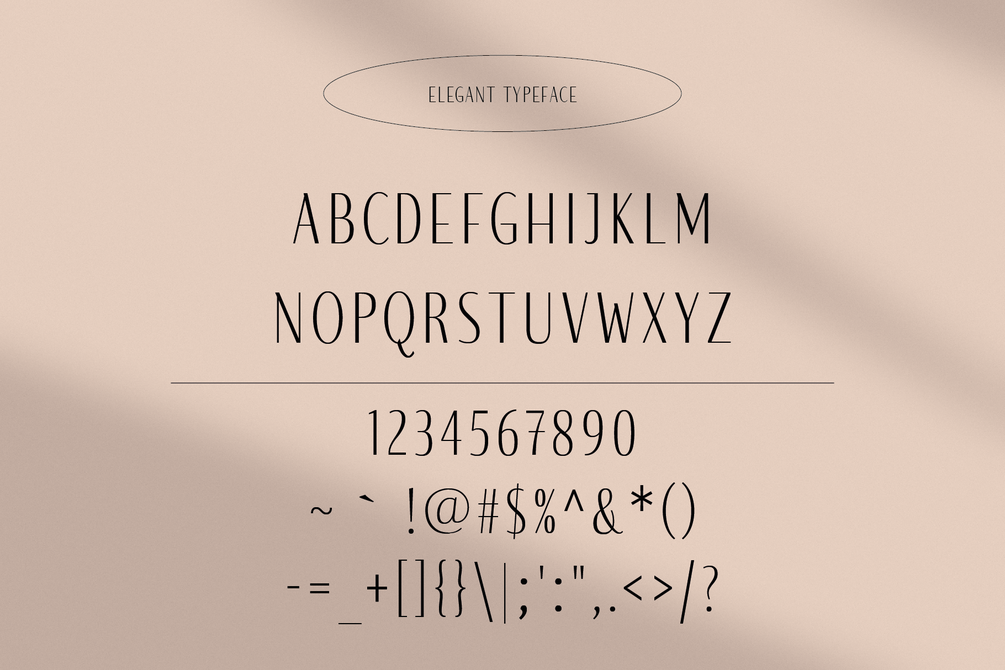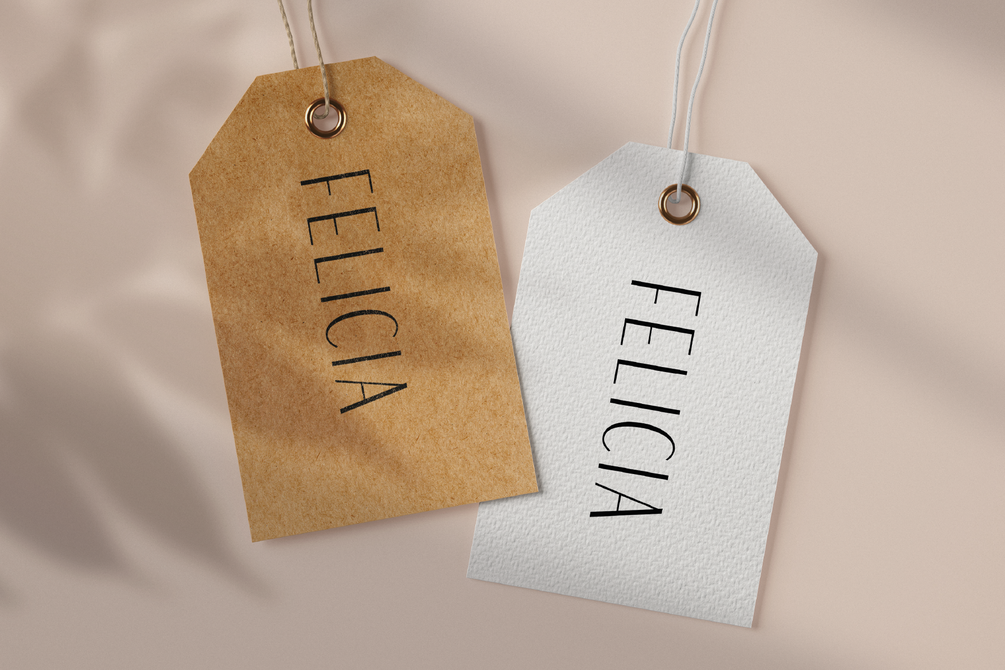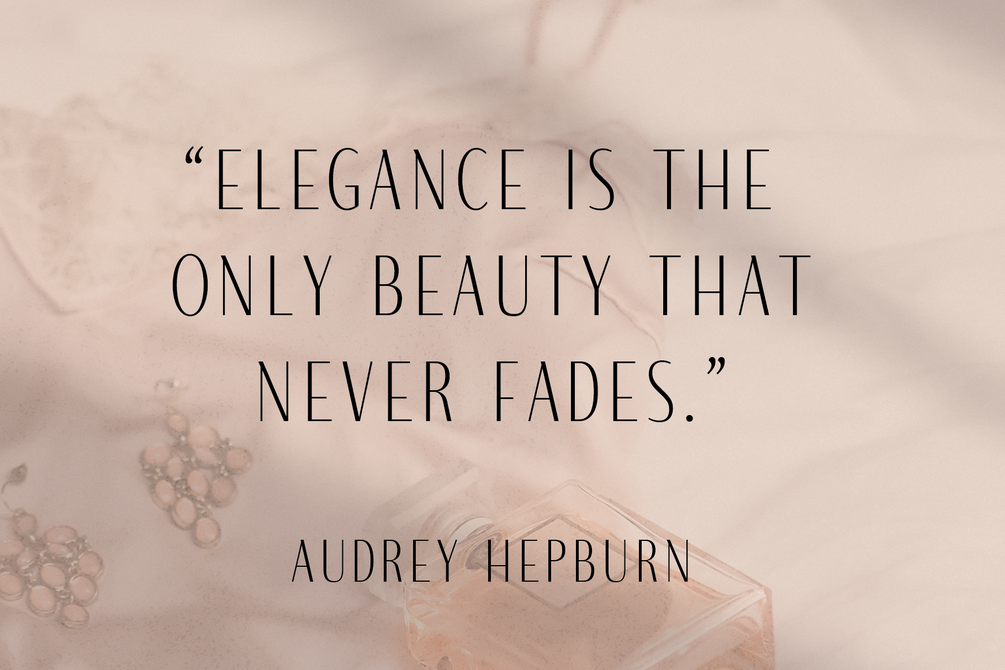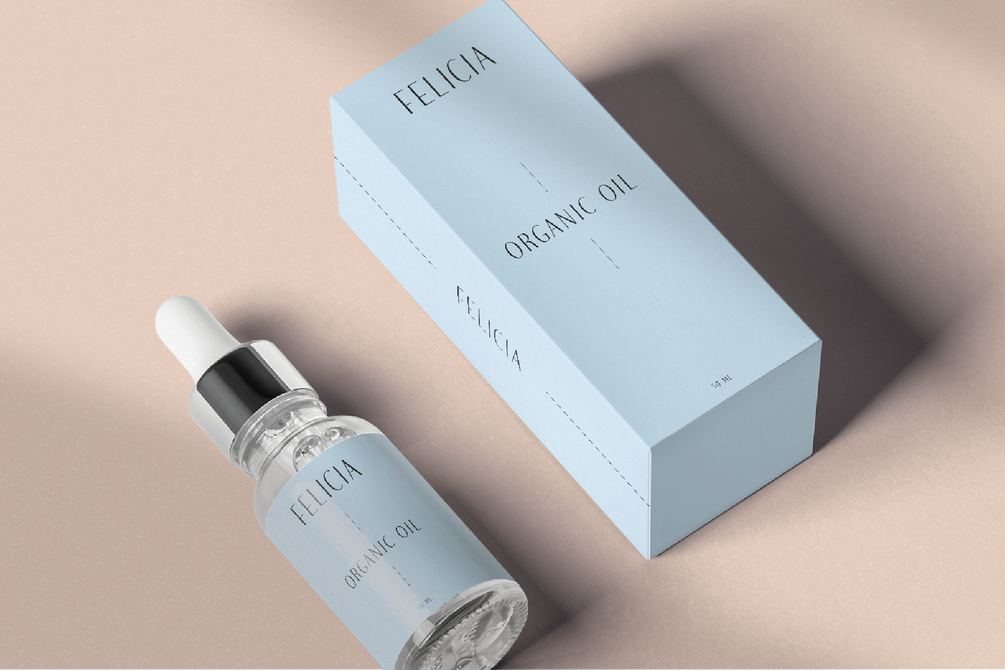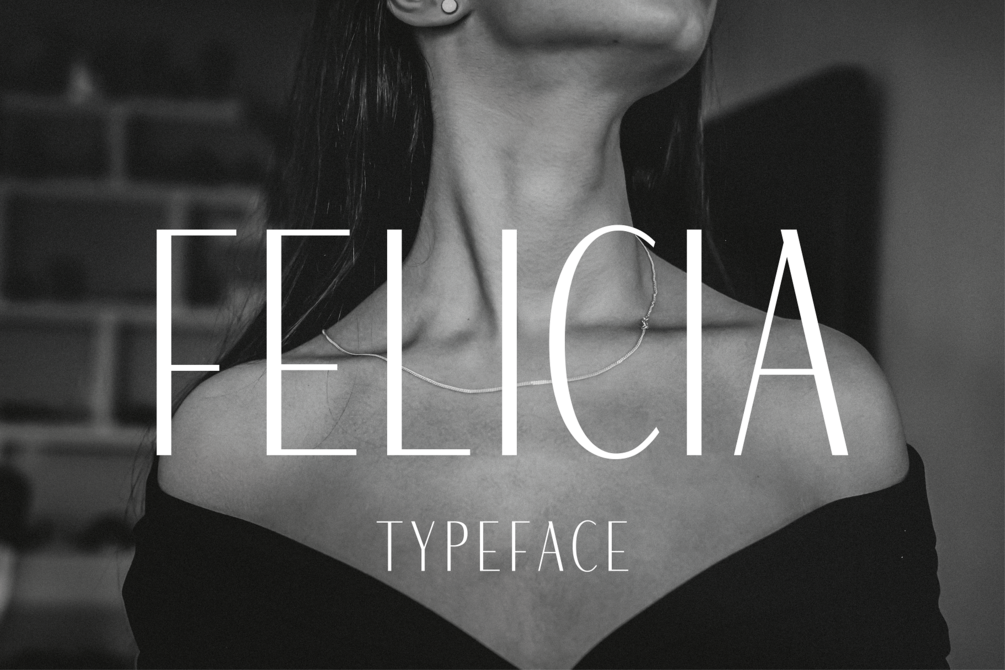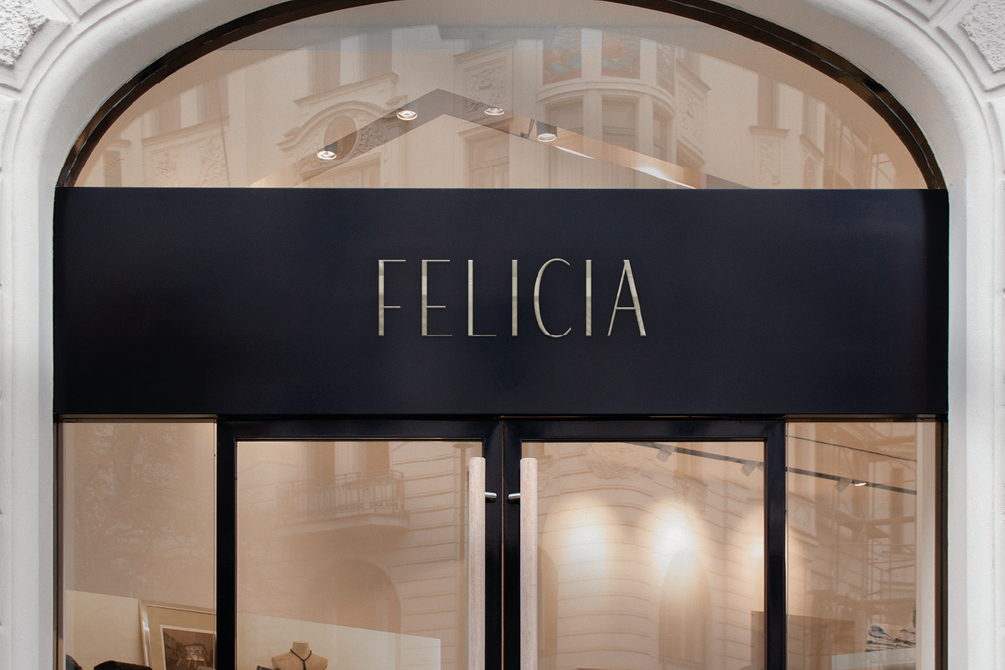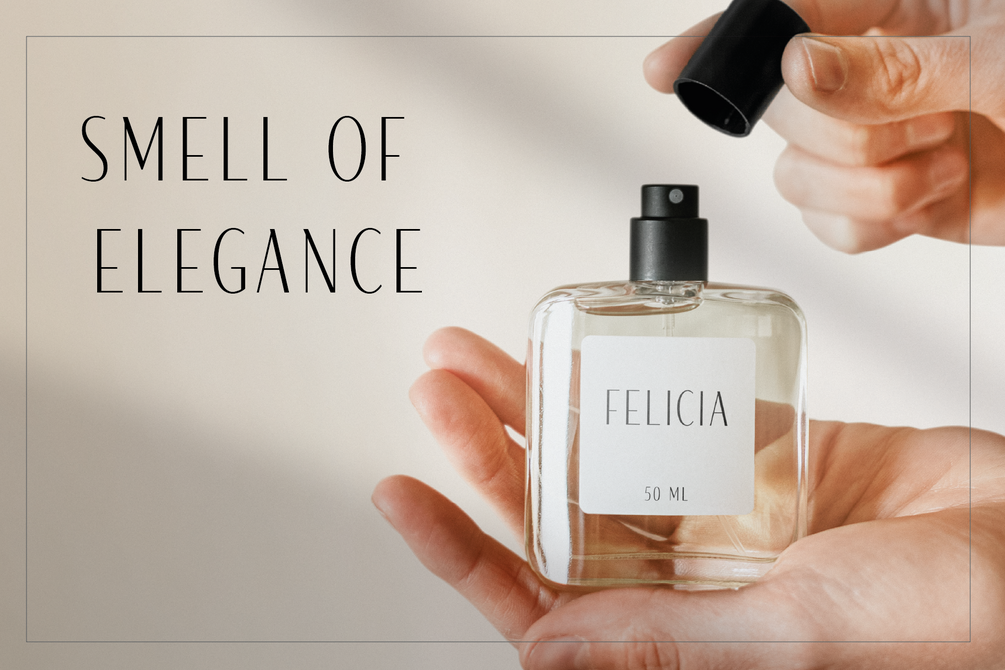
Felicia - Sleek Beauty Typeface
Felicia is an elegant beauty inspired typeface ready to be used for your luxury projects. Its clean and minimalistic design oozes class and elegance. If your aim is to grab the viewers attention in a sophisticated way, then Felicia is for you. Use is for branding, stationary, web design, magazines, advertising, and much more. Possibilities are truly endless here, the only limit is your creativity.